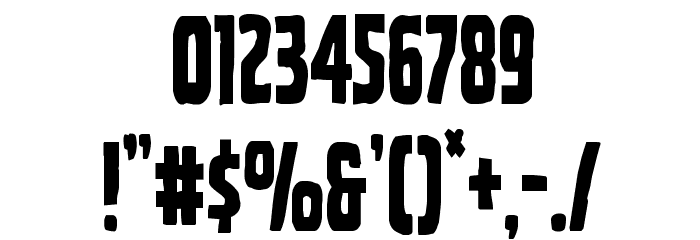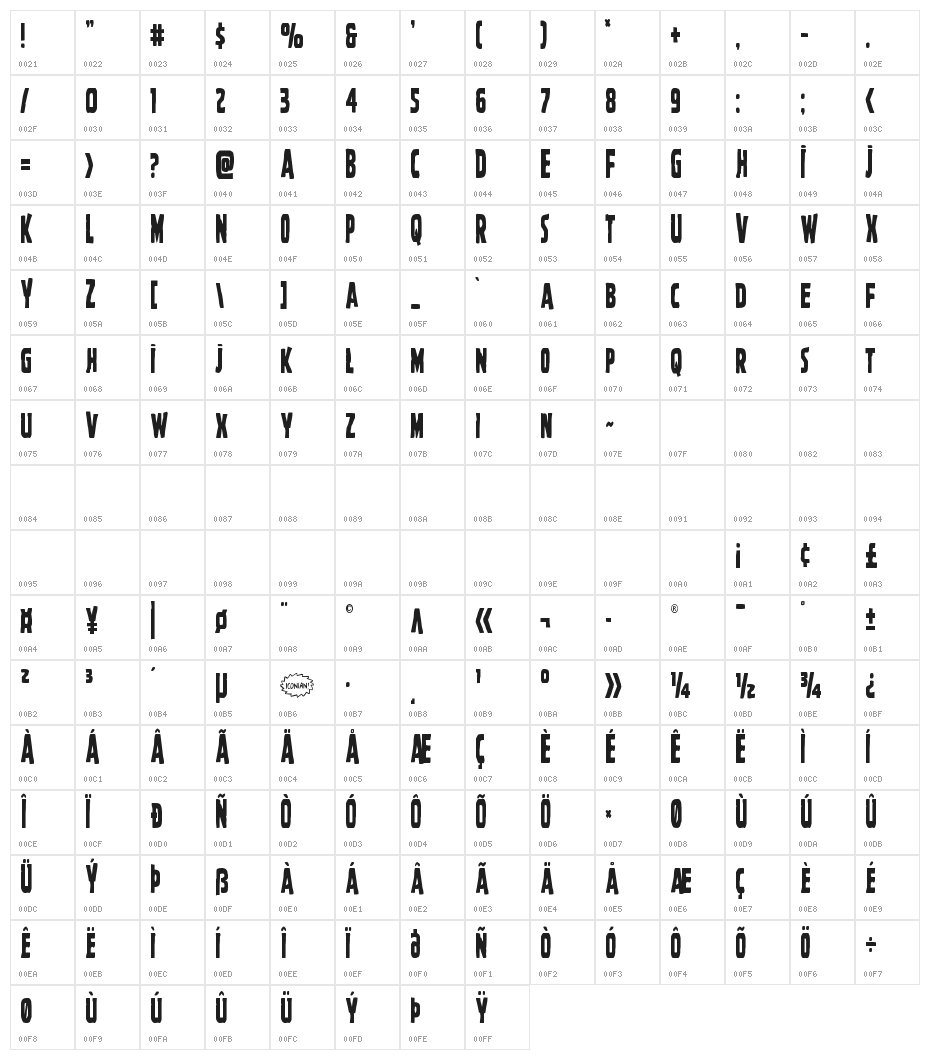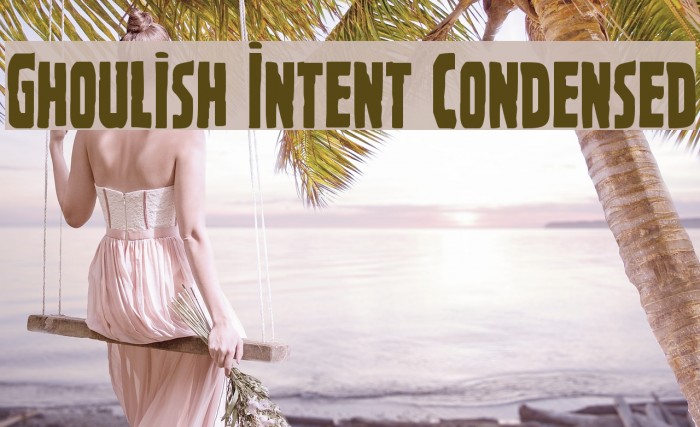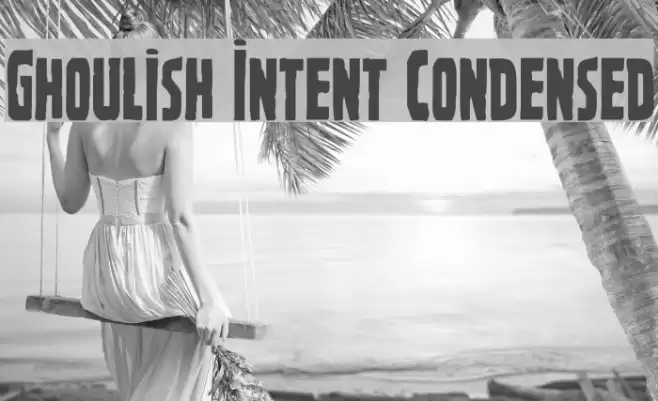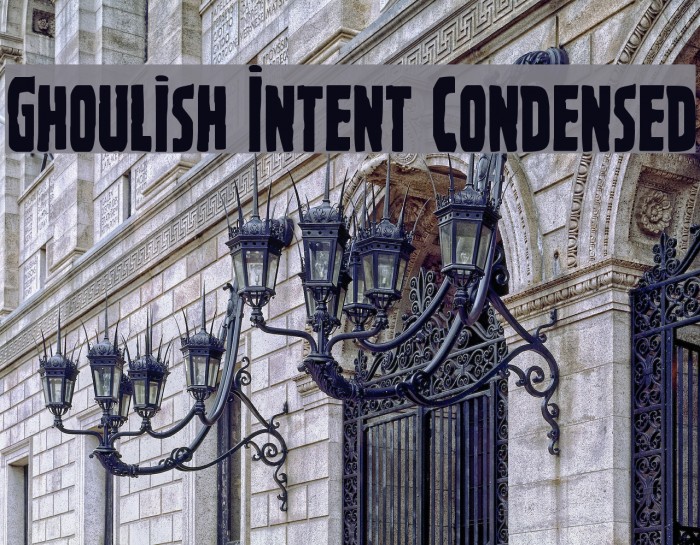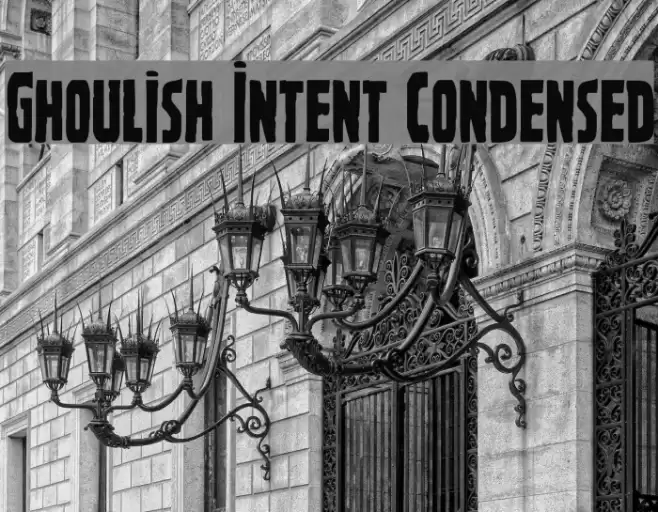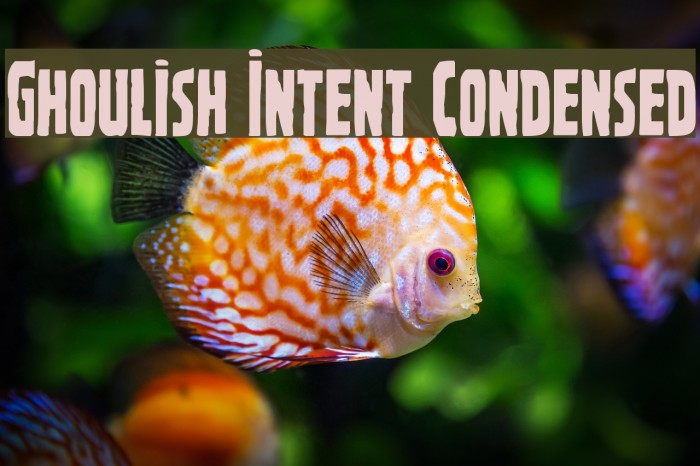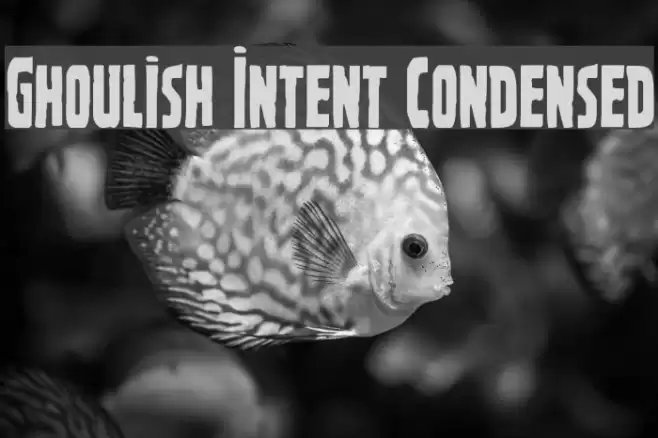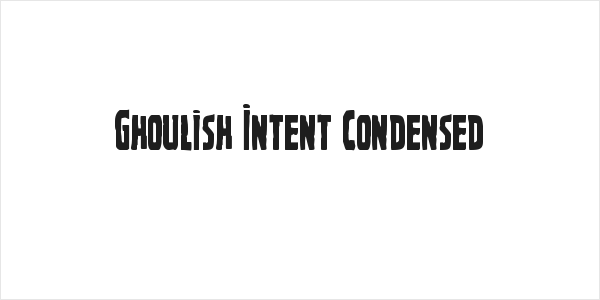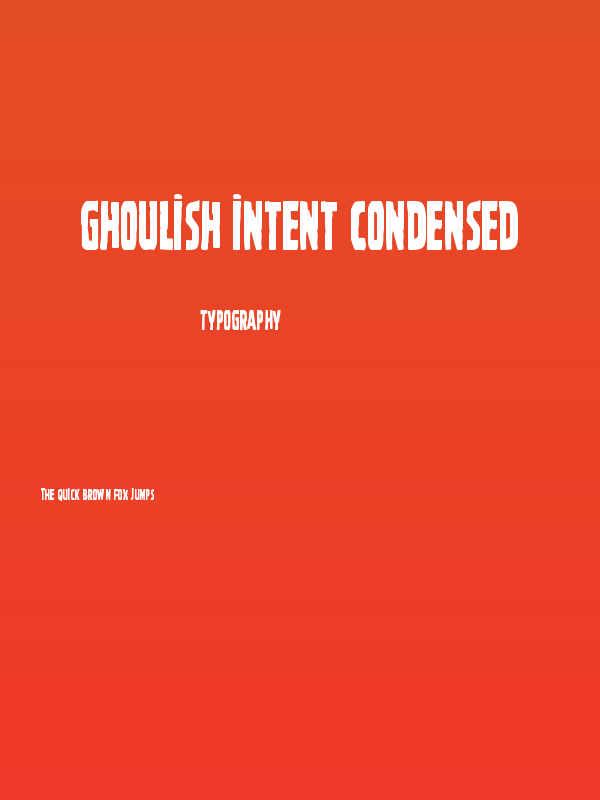
Ghoulish Intent Condensed Font
Ghoulish Intent Condensed Description
This font features a bold and condensed style with a slightly irregular and playful appearance. The characters have a hand-drawn quality, giving them a unique and quirky look. The uppercase letters are tall and narrow, with varying stroke widths that add to the font's dynamic feel. The lowercase letters maintain the same condensed style, ensuring consistency throughout the text. Numbers and special characters are designed to match the overall aesthetic, making this font suitable for creative and unconventional projects.
| Use Case | Headlines, Posters, Creative Branding |
| Proposed Projects | Ideal for Halloween-themed designs, posters, and creative branding projects. |